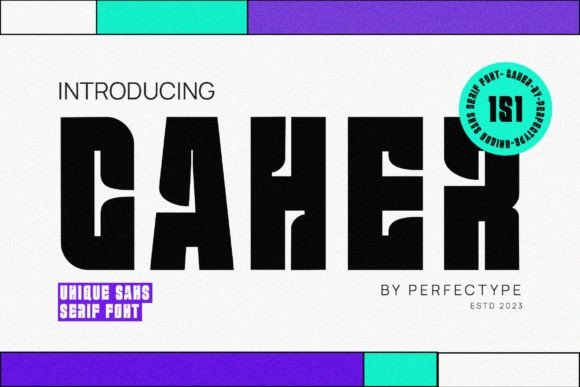
Discover the Elegance of Caher Font: A Perfect Blend of Symmetry and Minimalism
In the world of typography, a font can make or break a design. It’s the foundation upon which the entire visual identity is built. For designers and crafters, finding the perfect typeface that balances elegance, minimalism, and functionality can be a daunting task. This is where Caher Font comes into play, a beautifully crafted typeface that encapsulates a rhythm that is symmetrical and balanced due to a unique mix of different sources of inspiration.
The Inspiration Behind Caher Font
Caher Font’s design is rooted in a blend of classic and modern typographic styles. The creators of Caher Font drew inspiration from various sources, combining the best elements to create a unique and versatile typeface. This eclectic mix of inspirations results in a font that is both timeless and contemporary, making it suitable for a wide range of design applications.
Key Features of Caher Font
So, what makes Caher Font stand out from the rest? Here are some of its key features:
- Symmetrical and Balanced Rhythm: Caher Font boasts a symmetrical and balanced rhythm, making it a joy to read and look at. This balance is achieved through a careful consideration of letterforms, spacing, and proportions.
- Precise Proportions: The font’s proportions are precisely adjusted to create a harmonious flow of text. This attention to detail ensures that Caher Font works well in various design contexts, from body text to headings.
- Subtle Contours and Contrasts: Caher Font features subtle contours and contrasts that add depth and visual interest to the font. These nuances enhance the overall elegance and sophistication of the typeface.
- Elegant and Minimalist Design: Caher Font’s design strikes the perfect balance between elegance and minimalism. The font is refined and understated, making it an excellent choice for designs that require a touch of sophistication.
Versatility of Caher Font
One of the standout features of Caher Font is its versatility. The font’s design is flexible and adaptable, making it suitable for a wide range of graphic design purposes, including:
- Brochures and Flyers: Caher Font’s elegant and refined design makes it perfect for brochures, flyers, and other marketing materials.
- Videos and Motion Graphics: The font’s clean and legible design ensures that it works well in video scripts, motion graphics, and other multimedia applications.
- Advertising and Branding: Caher Font’s sophisticated design makes it an excellent choice for advertising and branding projects, where a professional image is essential.
- Logos and Icons: The font’s unique and memorable design makes it suitable for logos, icons, and other graphical elements.
- Magazines and Layout Designs: Caher Font’s elegant and refined design makes it perfect for magazines, layout designs, and other publication materials.
- Posters and Post Templates: The font’s bold and eye-catching design makes it suitable for posters, post templates, and other promotional materials.
- Games and Interactive Design: Caher Font’s clean and legible design ensures that it works well in games, interactive design, and other digital applications.
In conclusion, Caher Font is a beautifully crafted typeface that offers a unique blend of symmetry, elegance, and minimalism. Its versatility and flexibility make it suitable for a wide range of graphic design purposes, from brochures and videos to logos and games. Whether you’re a designer, crafter, or simply someone looking for a reliable font, Caher Font is an excellent choice. With its precise proportions, subtle contours, and elegant design, Caher Font is sure to elevate your designs to the next level.